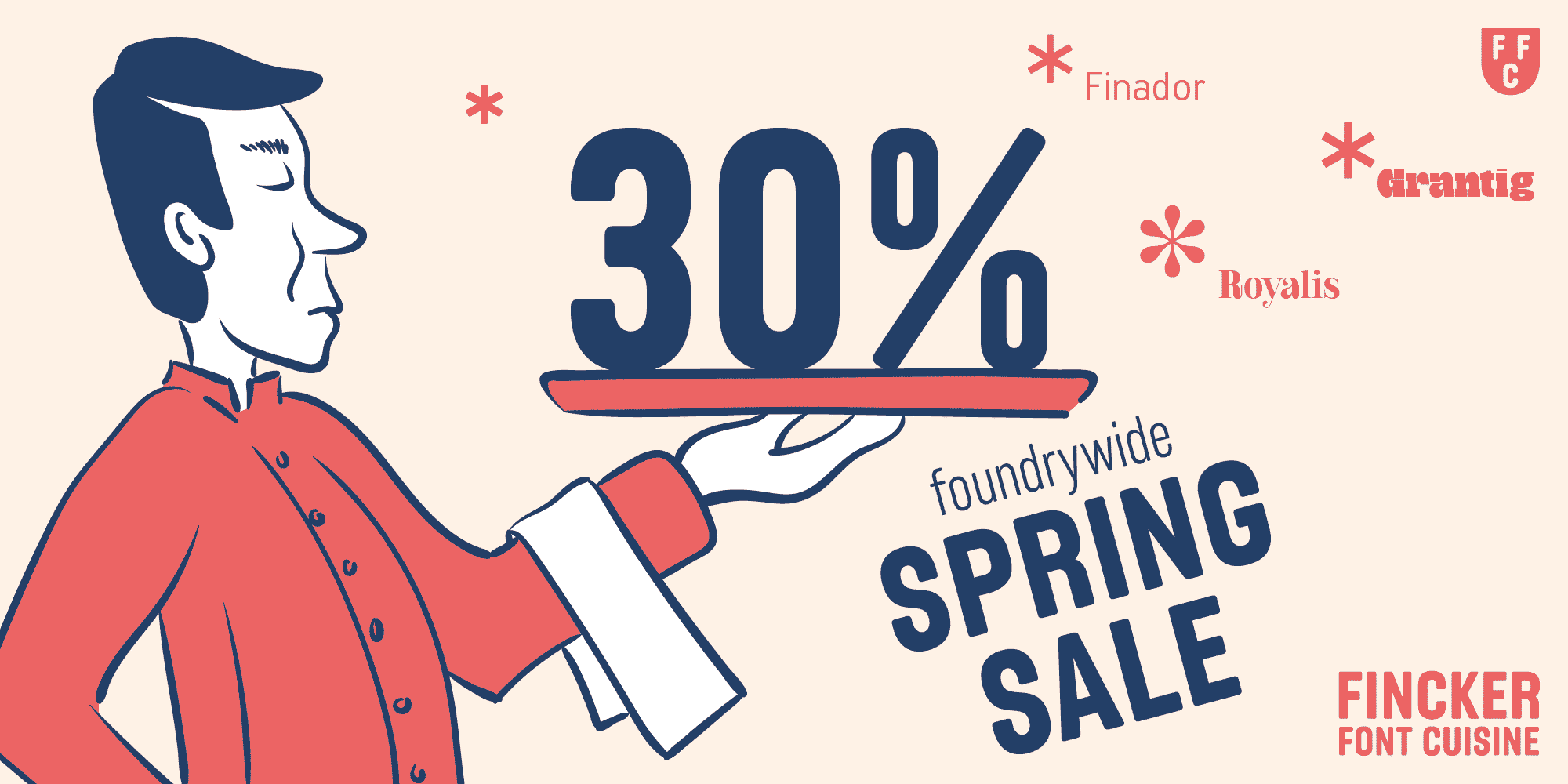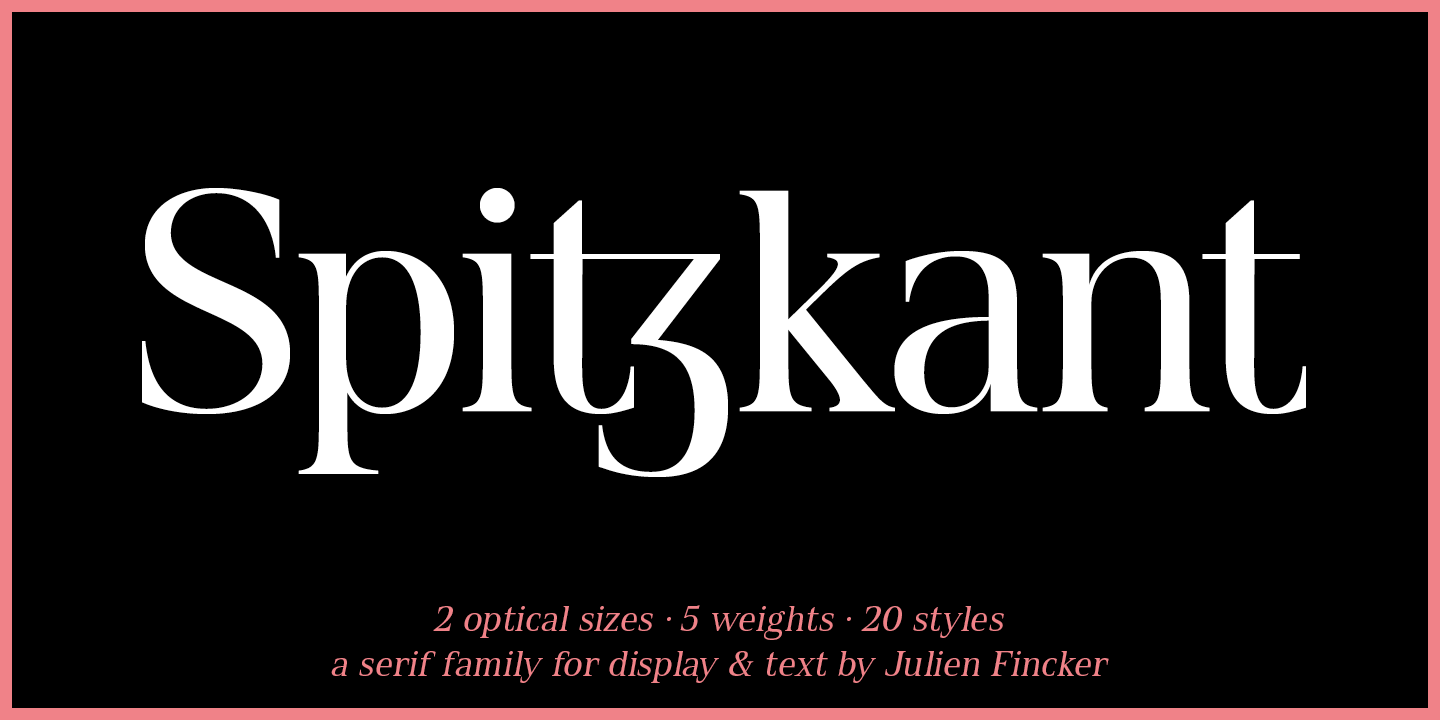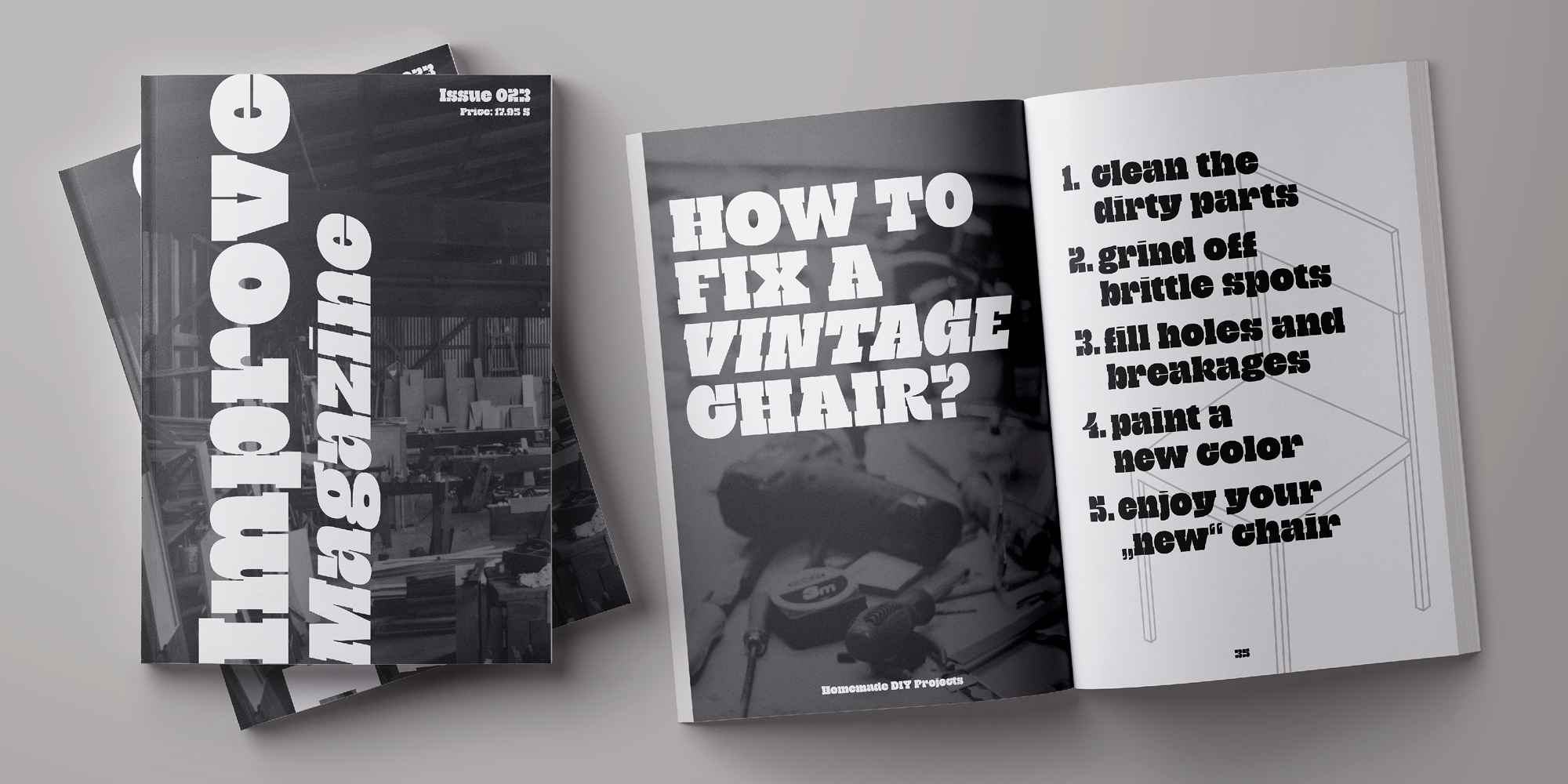
| Spring Sale at Fincker Font Cuisine – a Recipe for Creative Designs! | |
Spring has finally arrived – and with it, a fresh breeze for your creative projects! To celebrate the season, Fincker Font Cuisine has cooked up an irresistible offer: Get 30% OFF all exclusive F.F.C. fonts. Because just like in the kitchen, the right blend is key – and they have the perfect recipe for you!
With Font Cuisine's fonts, you'll become a typography MasterChef. Each font is like a carefully selected ingredient that adds the perfect flavor to your design. Whether you're looking to spice up your ideas with the elegant serif typefaces Spitzkant or Royalis or add a modern touch with the sans-serif typefaces Finador, Ardena or Garino they've got the ideal ingredient for every project. Even if you are you looking for something more extravagant, take a look at Bourget, Grantig or Nestor.